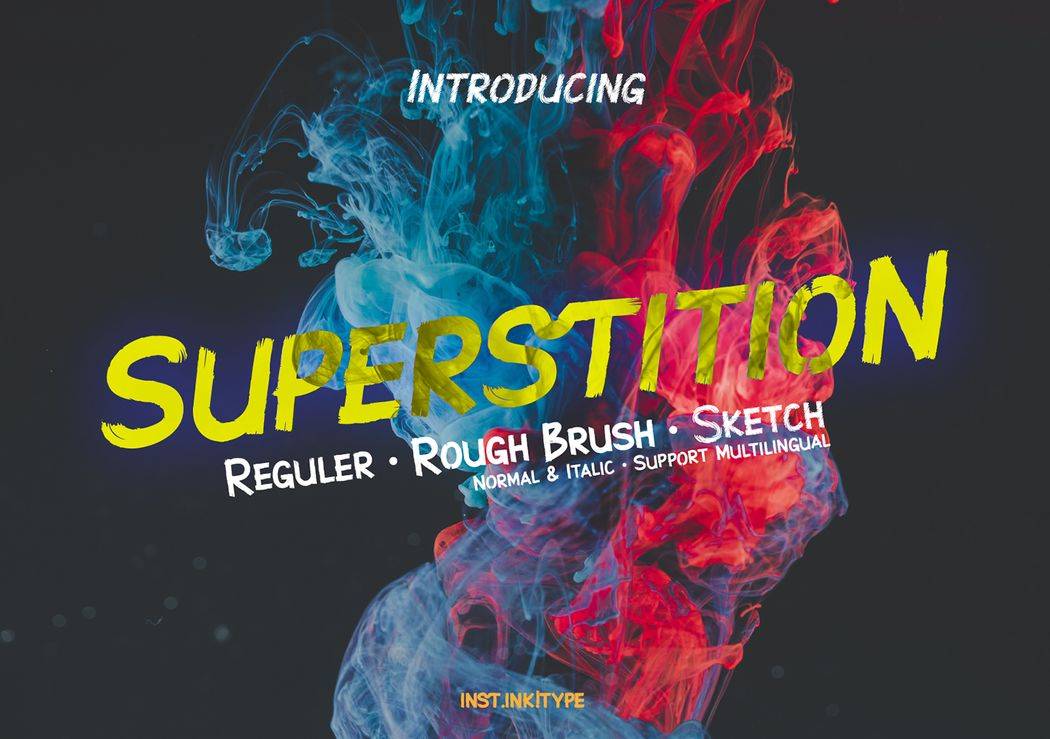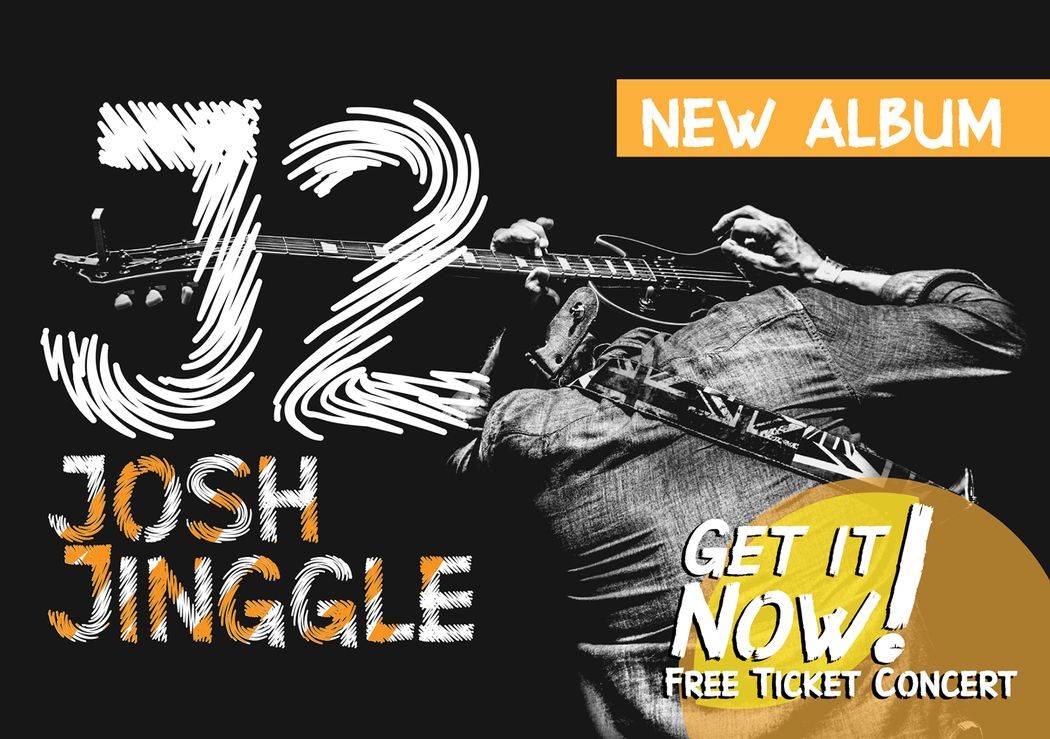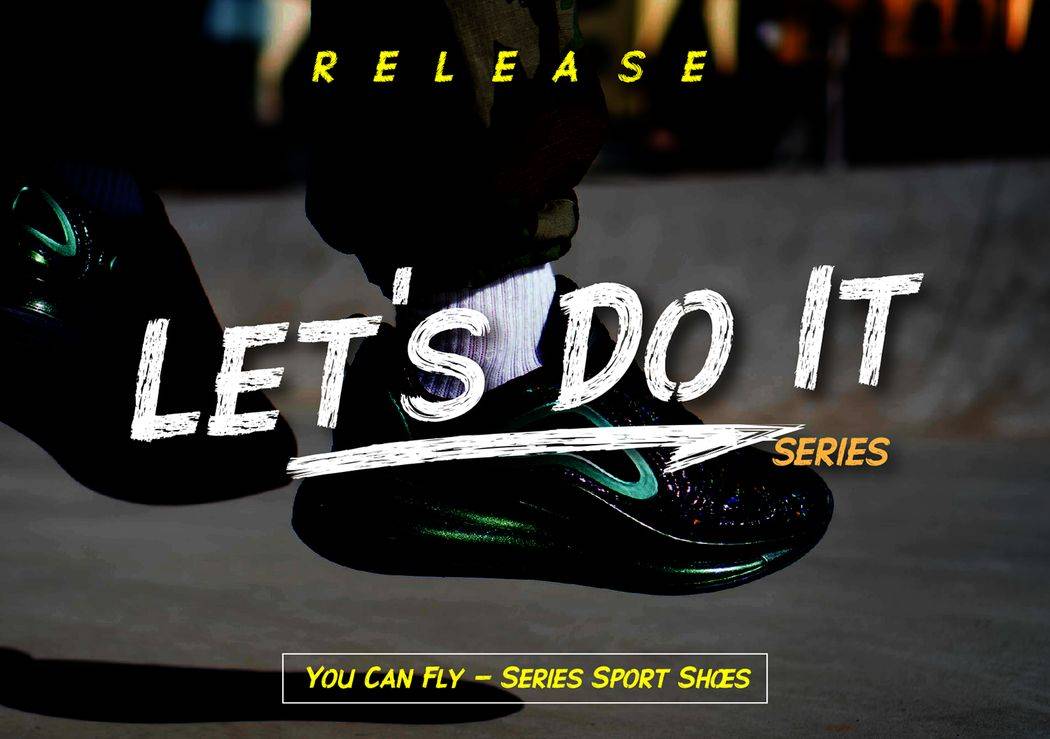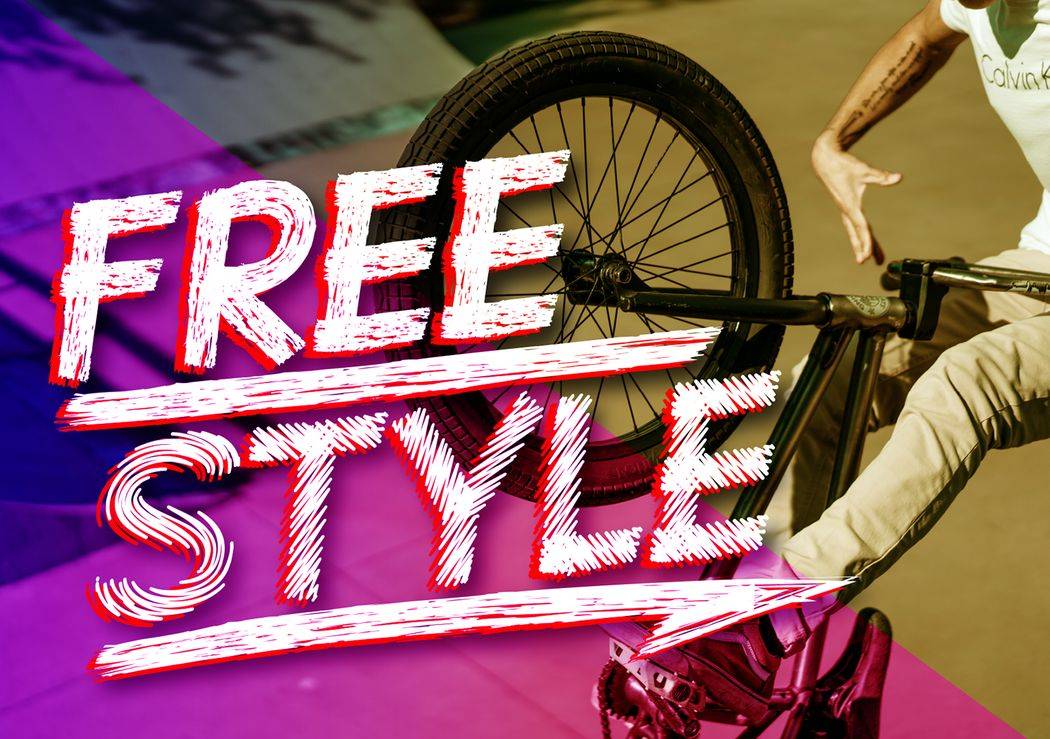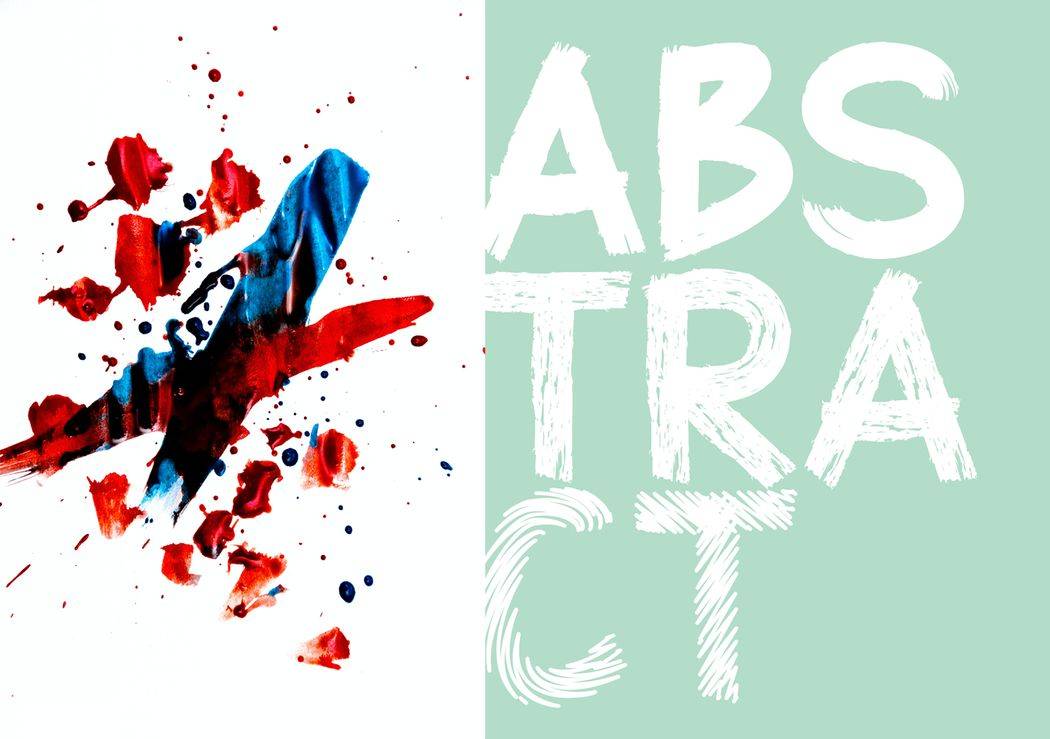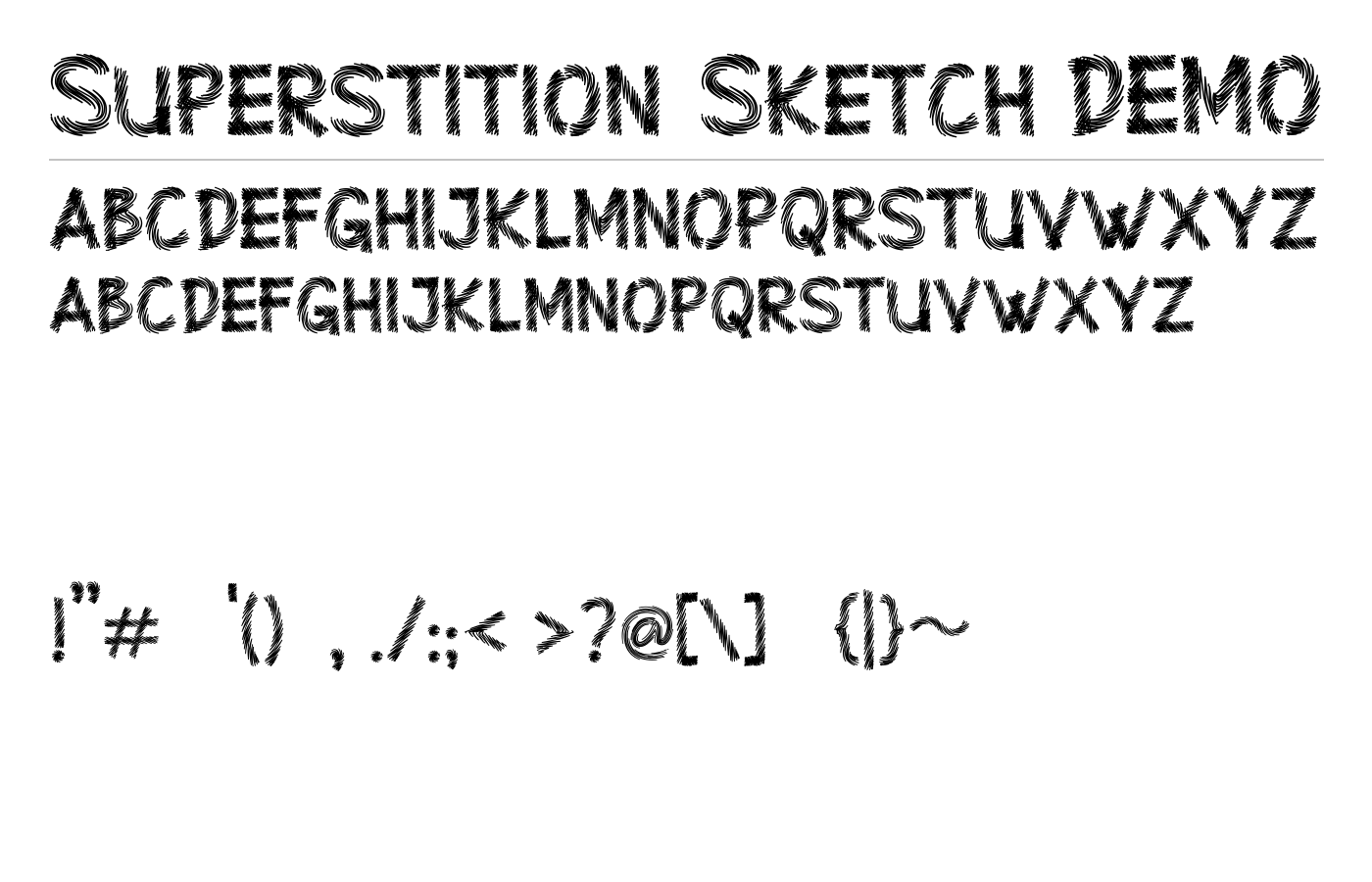
Superstition Font is a bold, sans serif typeface with a hand-drawn, sketch-like texture that gives it a lively and dynamic feel. Its irregular, rough strokes create an energetic and playful vibe, making it perfect for creative projects, posters, and informal branding that want to stand out with a distinctive, handcrafted look. This font works well where a casual, artistic expression is desired, bringing a unique, edgy personality to headlines and display uses.
Superstition Font
About Superstition Font
| Font family | Superstition Font |
| Release date | 2020-05-11 |
| Designer | Galih Sulistya Aji |